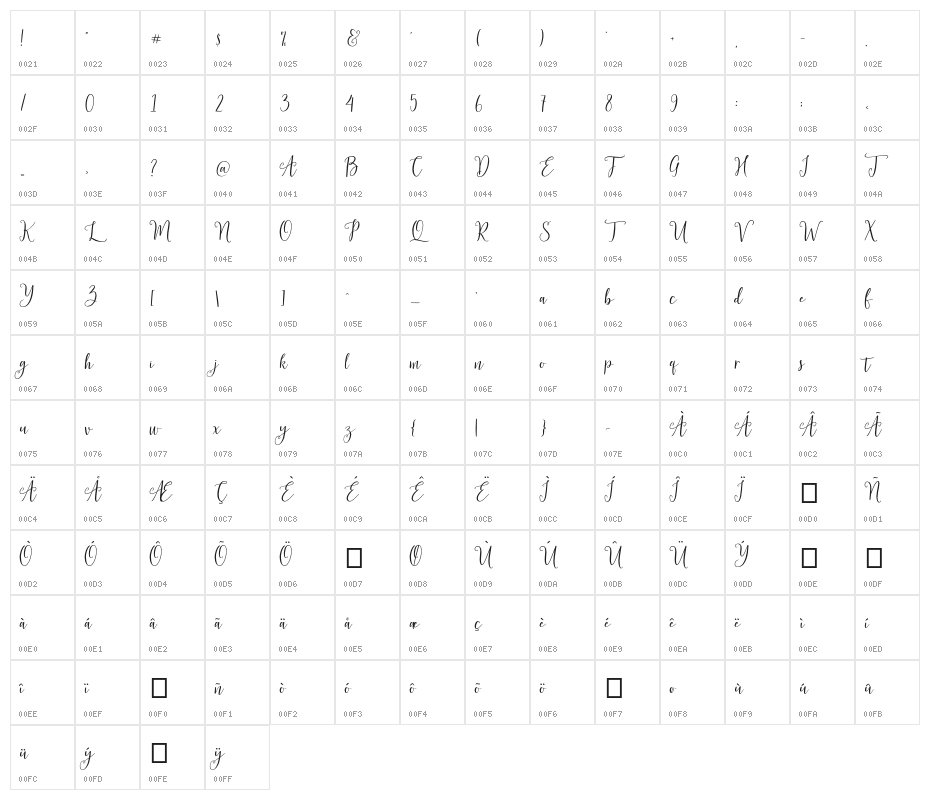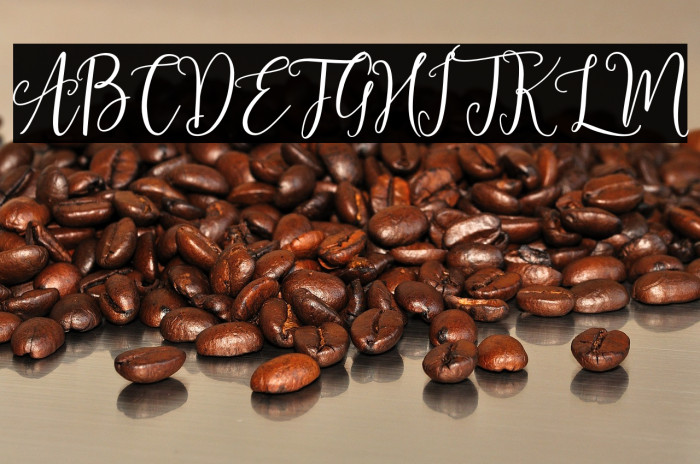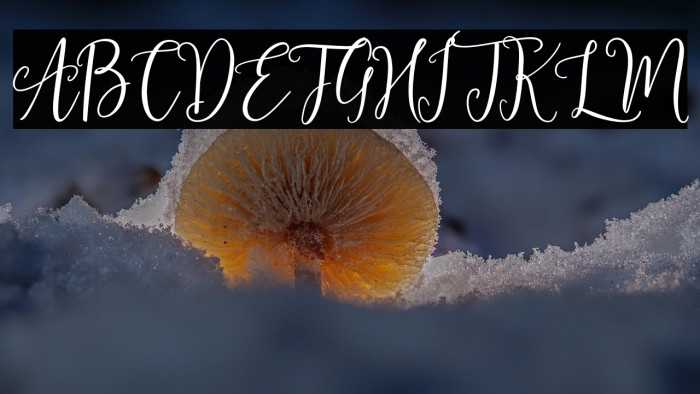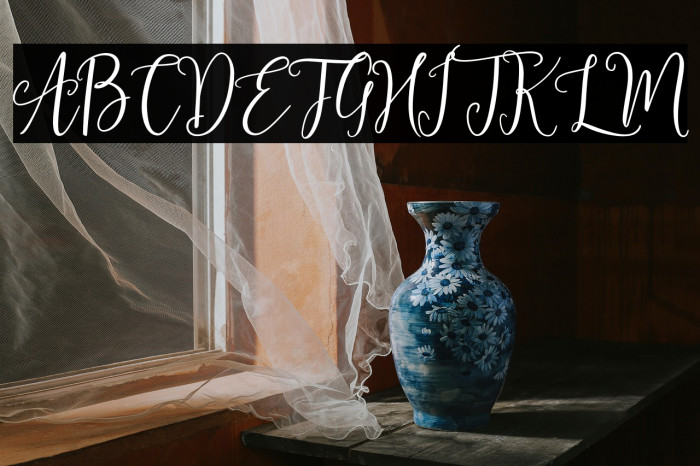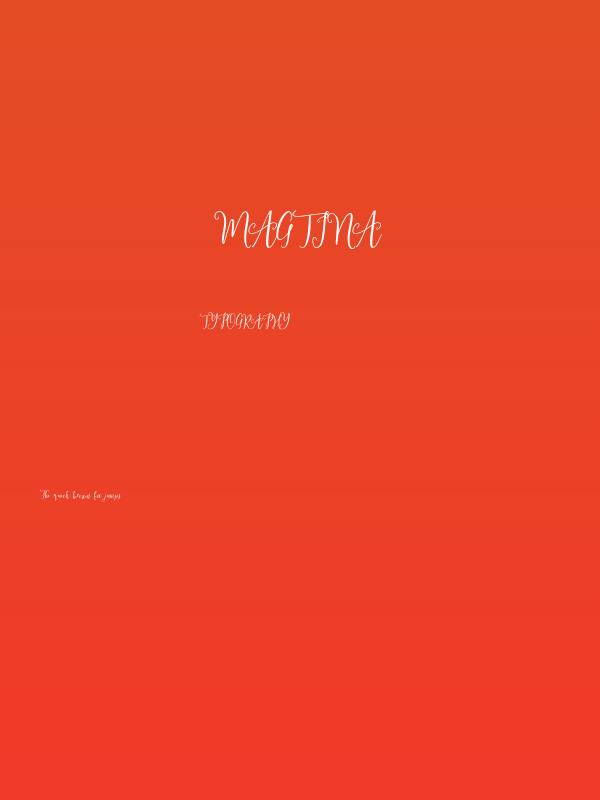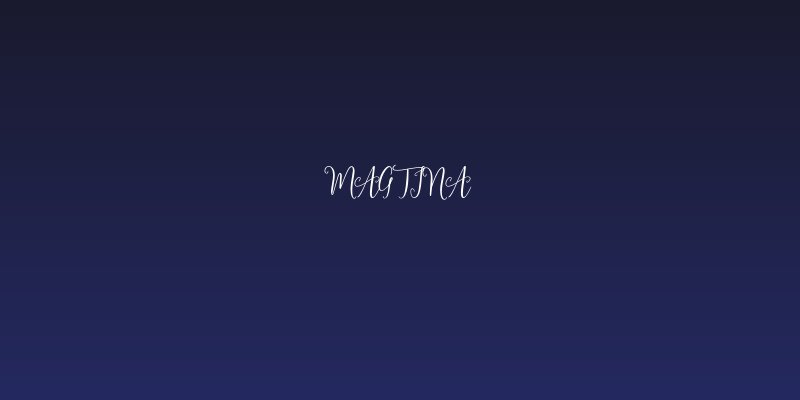
Magtina Font
Magtina Description
This elegant script font features flowing, cursive letterforms with a sophisticated and artistic flair. The uppercase letters are ornate and decorative, with intricate loops and swashes that add a touch of luxury and refinement. The lowercase letters maintain a consistent style, offering a harmonious blend of curves and lines that create a cohesive and fluid appearance. The numerals are stylish and complement the overall aesthetic, while the special characters are thoughtfully designed to match the font's graceful nature. This font exudes a sense of elegance and charm, making it ideal for projects that require a touch of sophistication.